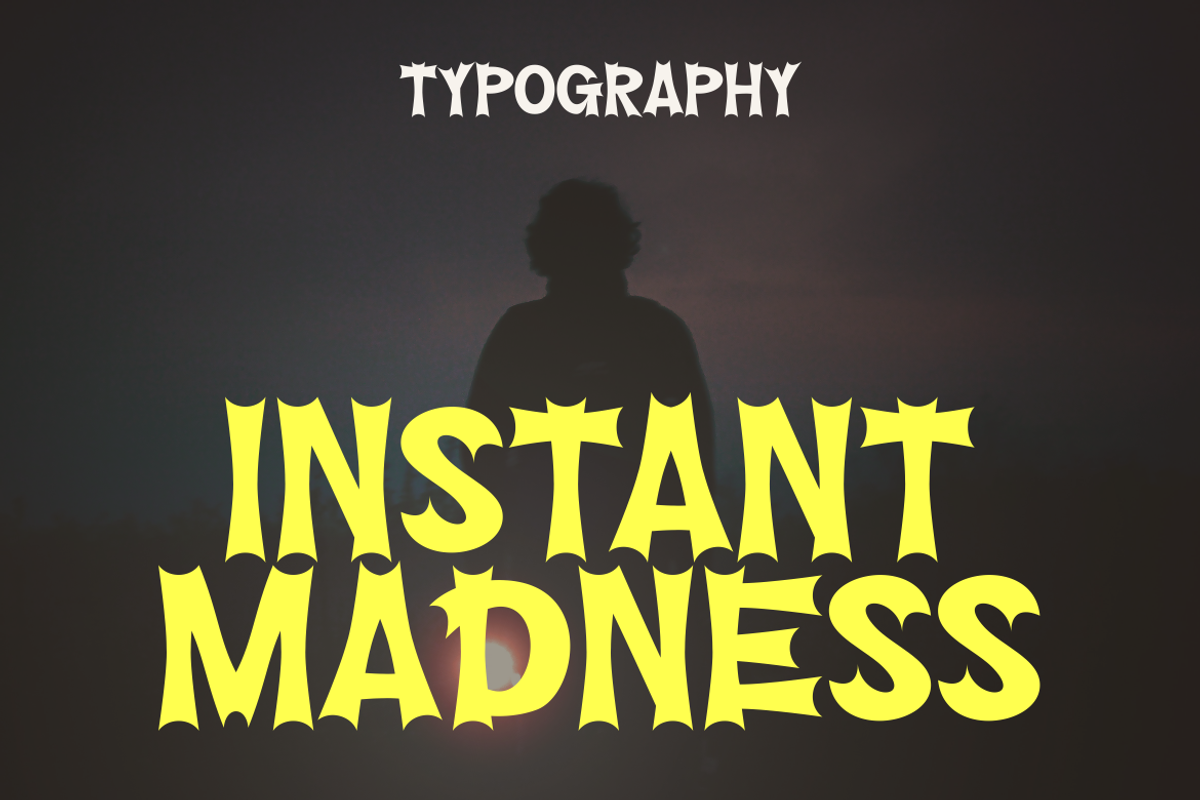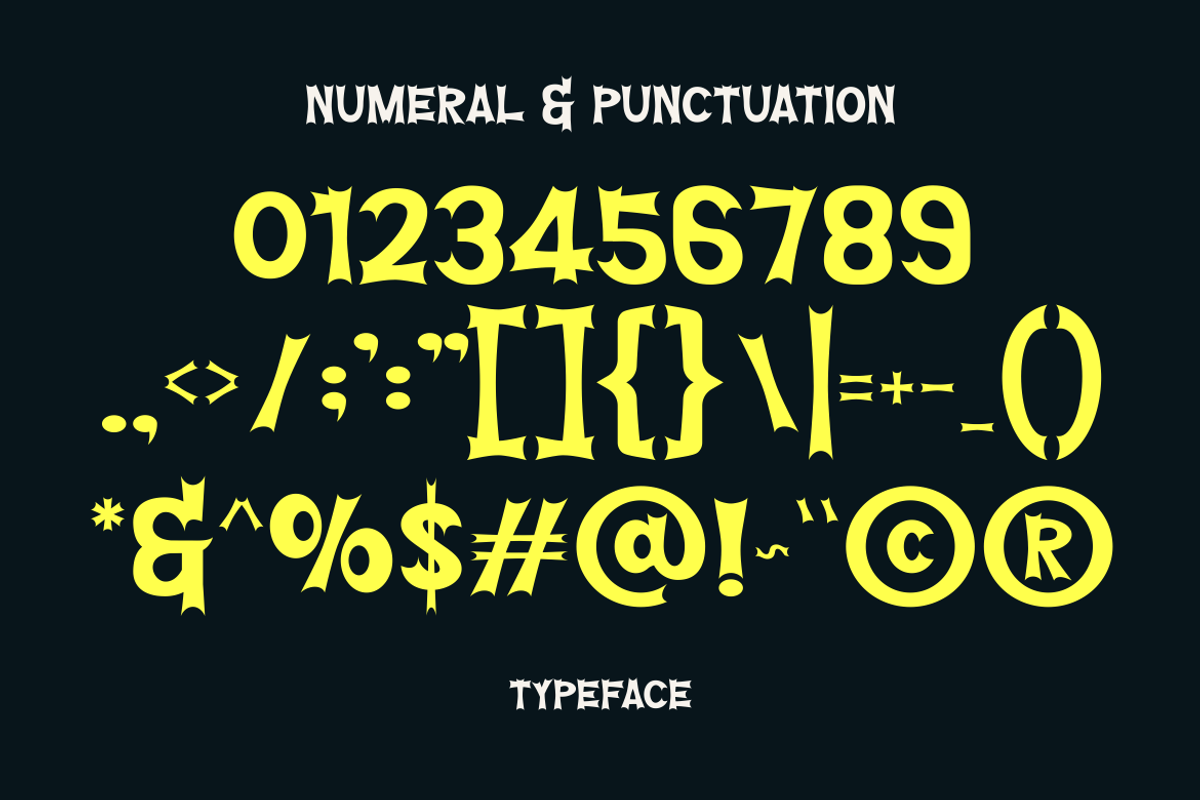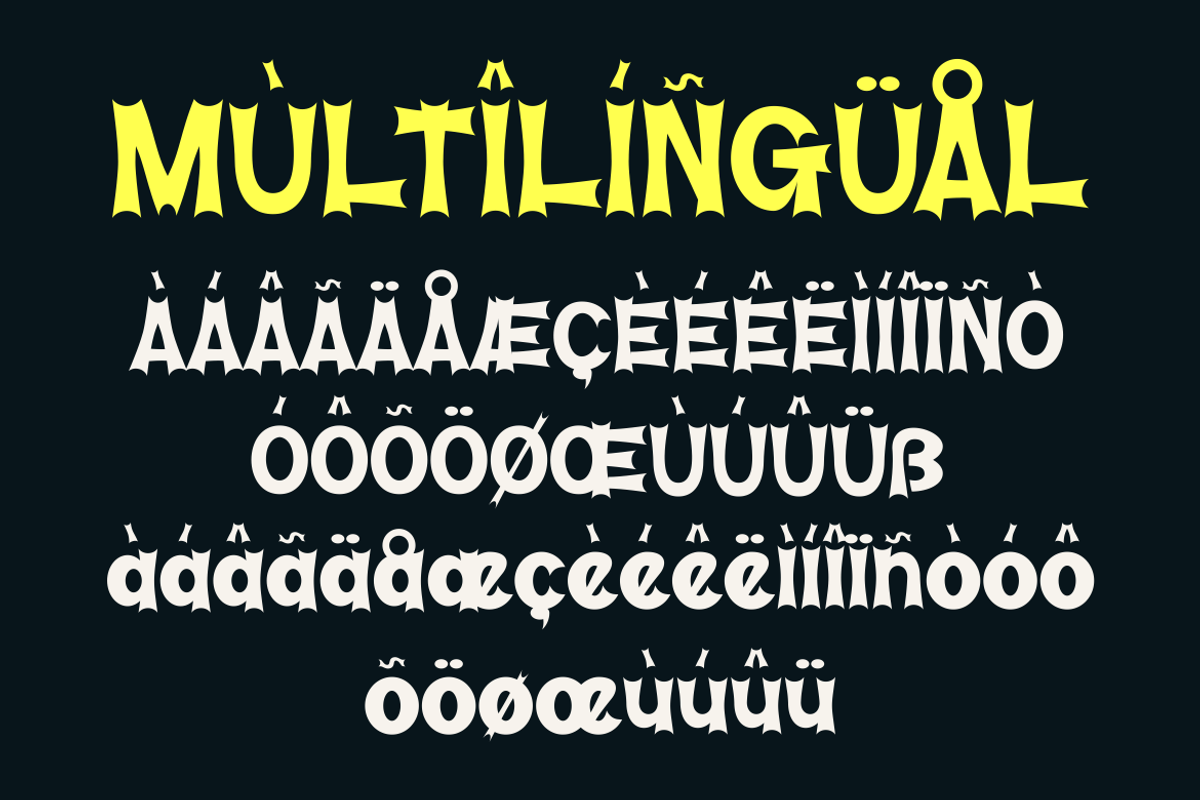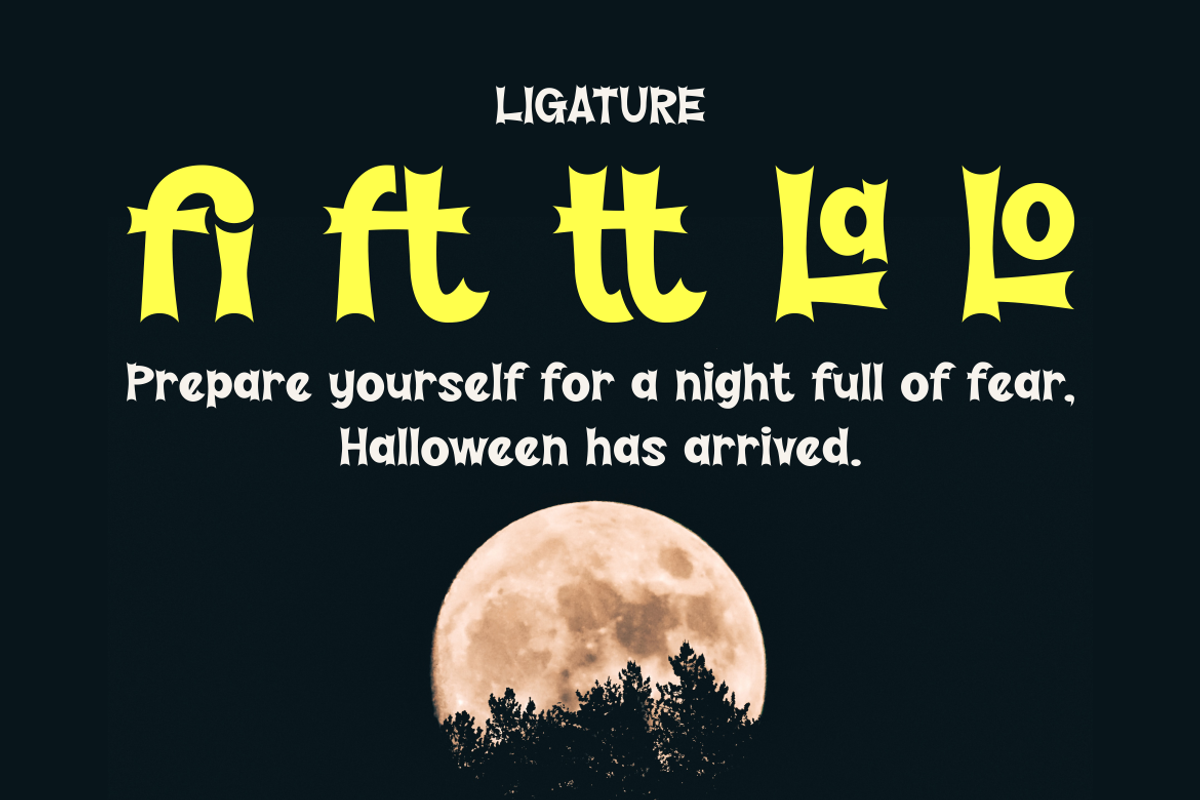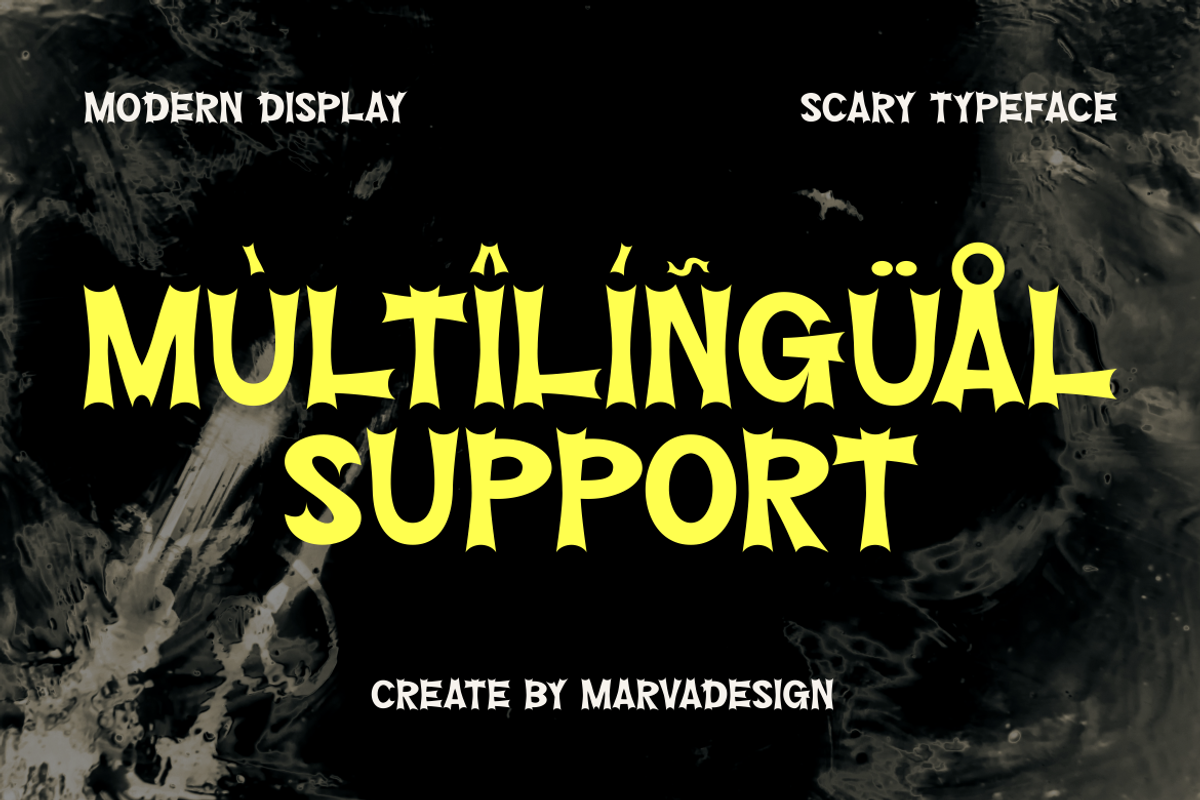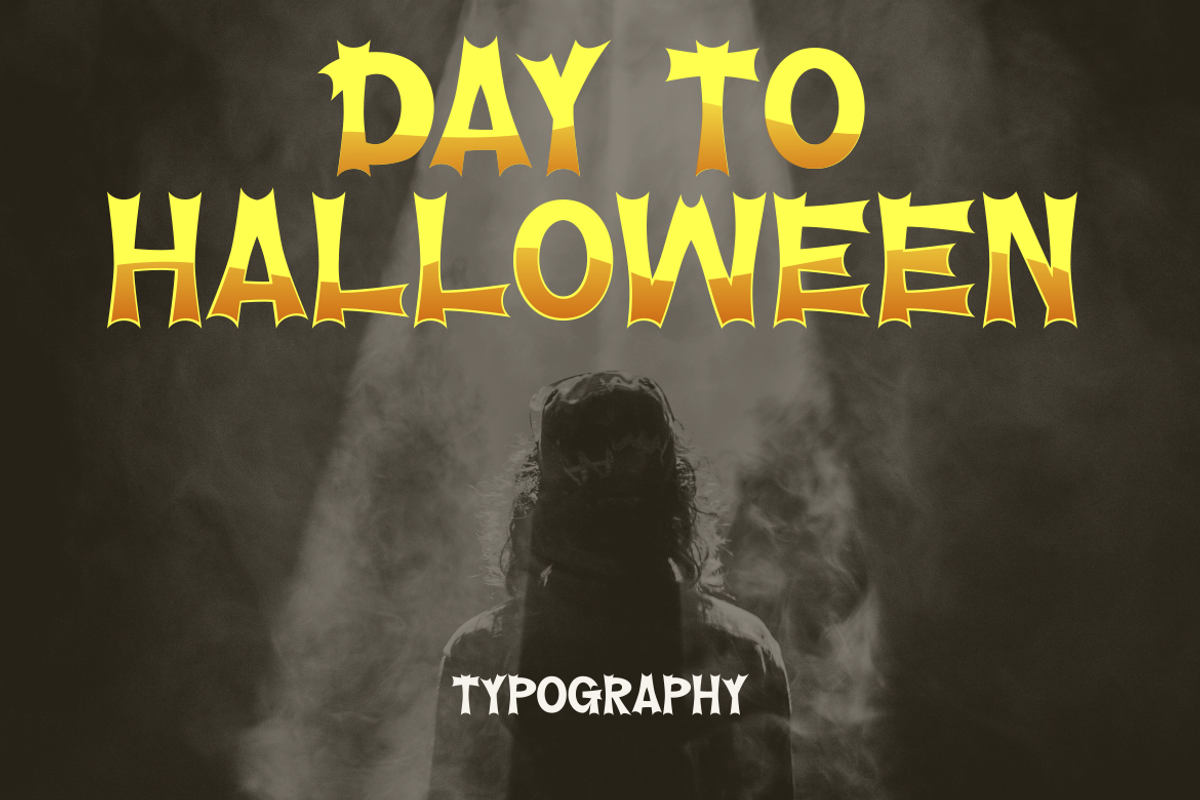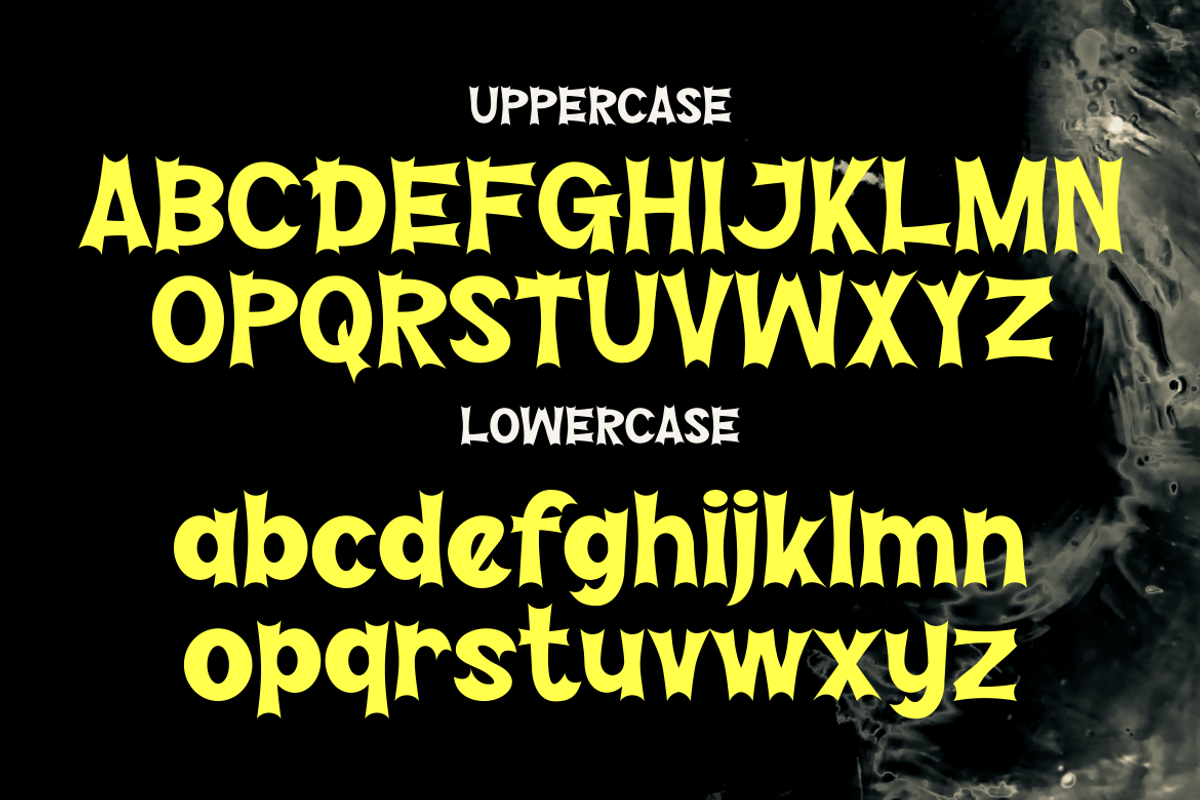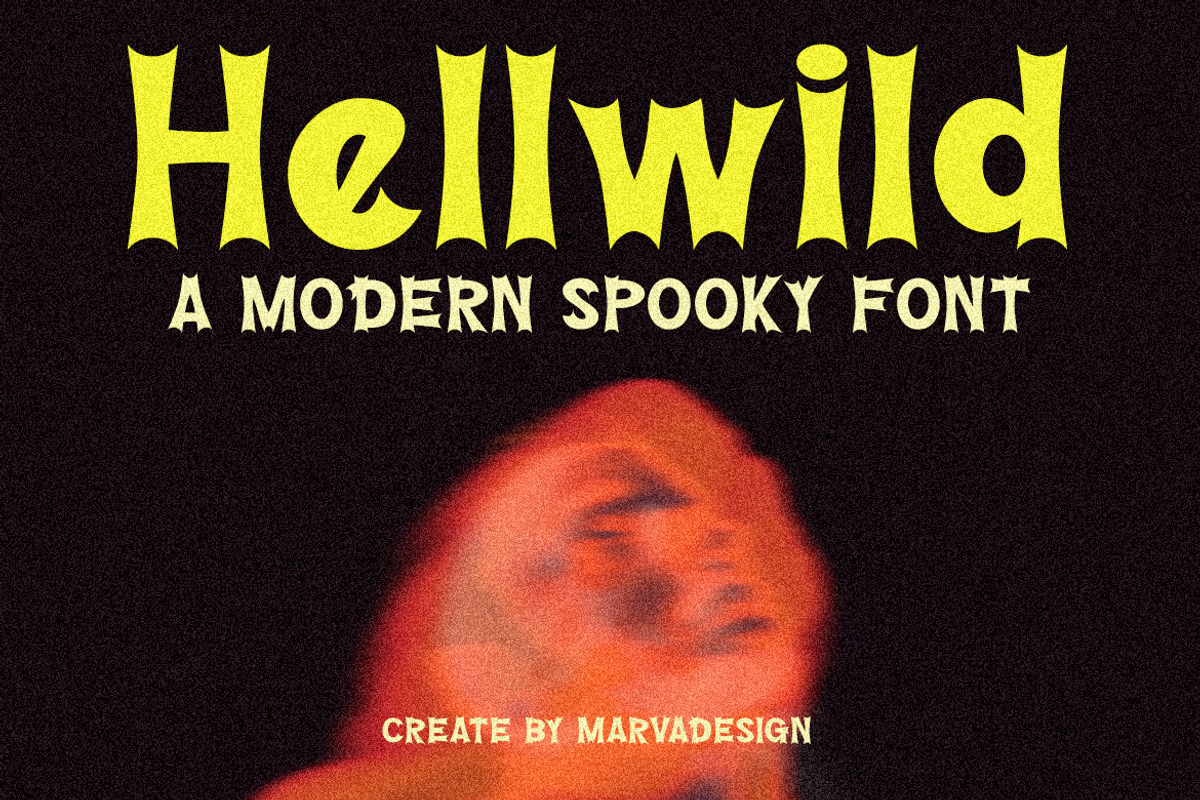
Hellwild - A Modern Spooky
Introducing our new product Hellwild Font - Modern Font is a bold and authentic display font. The font is suitable for any branding project like logo, Template Design, Product and many more. outstanding in a wide range of contexts.